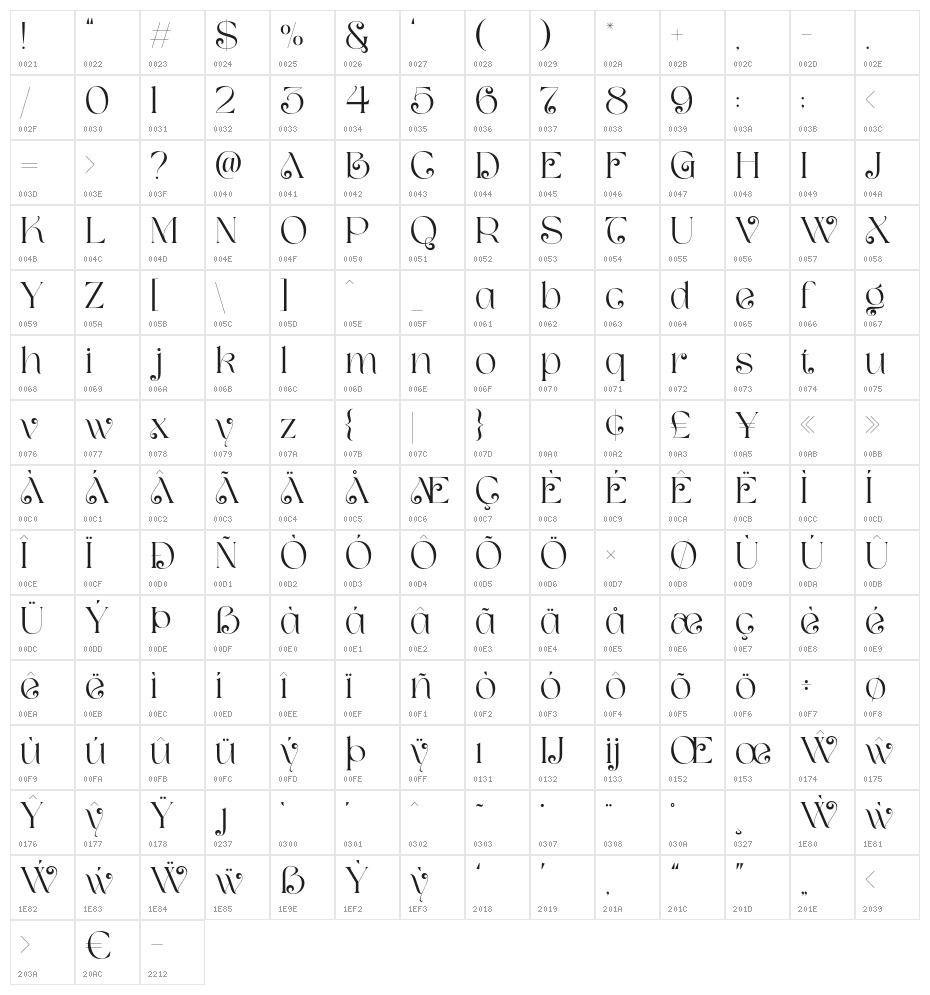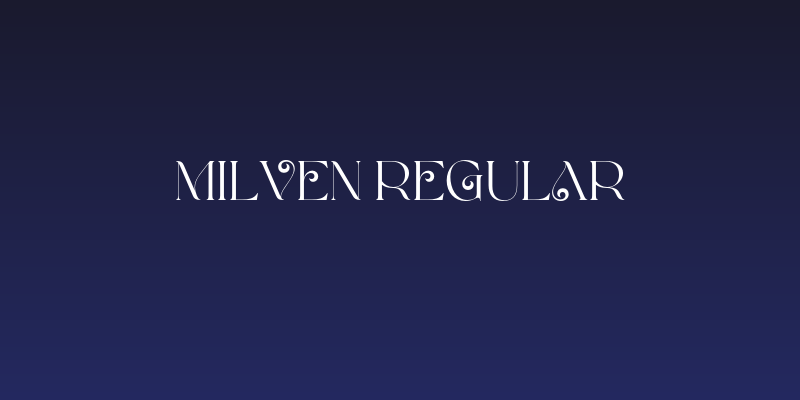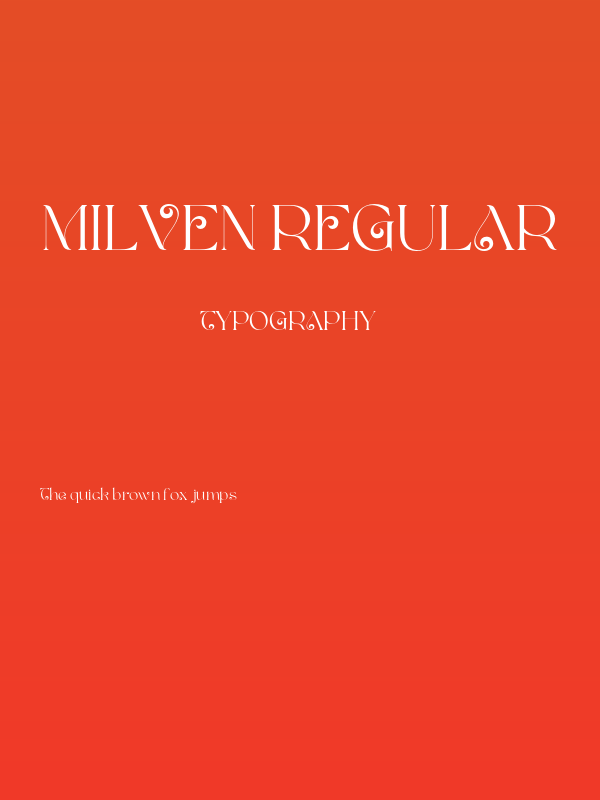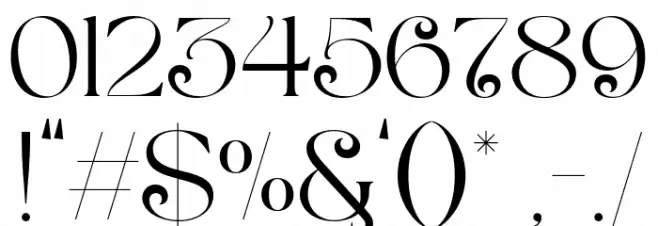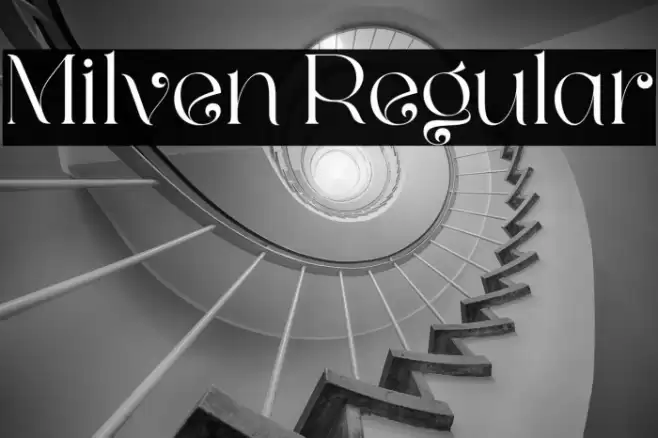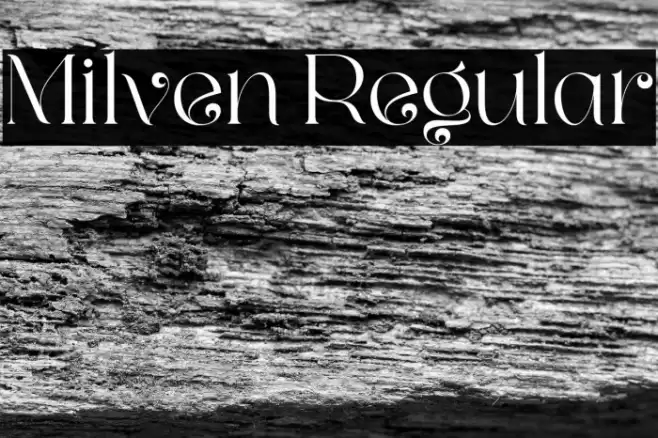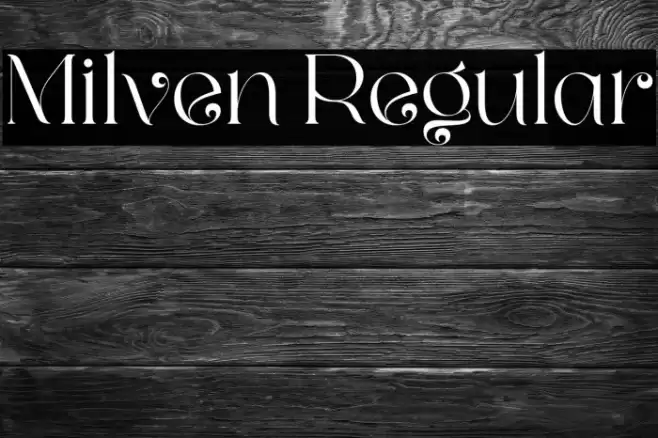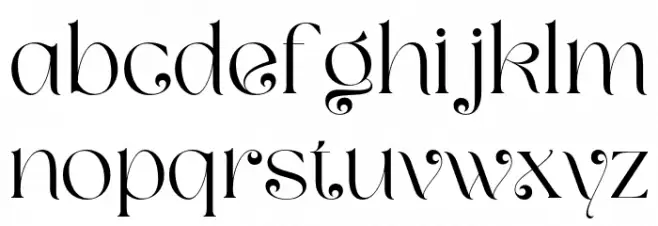
Milven Regular Font
Milven Regular Description
This font exhibits a decorative and elegant style characterized by its unique swirls and curls on certain characters, giving it a whimsical and artistic flair. The uppercase letters are particularly ornate, with intricate details that make them stand out. The lowercase letters maintain a consistent style, with smooth curves and a balanced appearance. The numerals are distinct and easy to read, while the special characters complement the overall aesthetic with their own decorative touches. This font's design is both playful and sophisticated, making it suitable for creative and artistic projects.
| Proposed Projects | Ideal for invitations, branding, artistic posters, and creative design projects. |